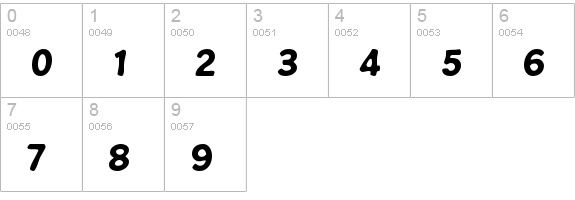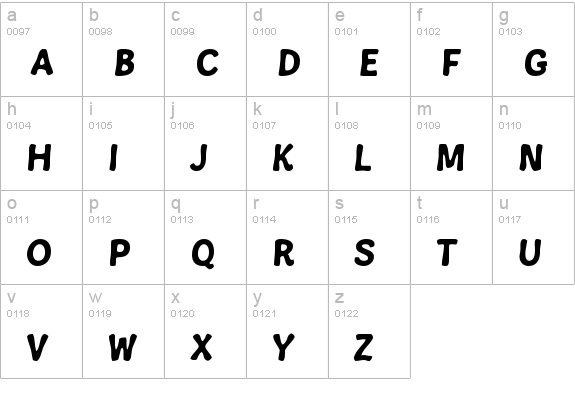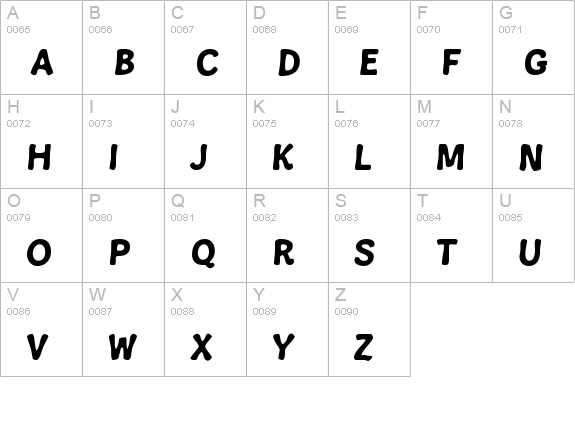
Snowa Font Details
Snowa font is a stunning display typeface that exudes elegance and sophistication. Its sleek lines and modern design make it perfect for a wide range of projects, from branding to editorial design. With its unique style and versatility, Snowa font is sure to make a statement and captivate any audience. The best part? Snowa font is completely free to download at FontsMarket.com. This means you can easily access this beautiful typeface without any cost, making it a valuable addition to your font collection. Don't miss out on the opportunity to enhance your designs with the timeless beauty of Snowa font - download it today and see the difference it can make!